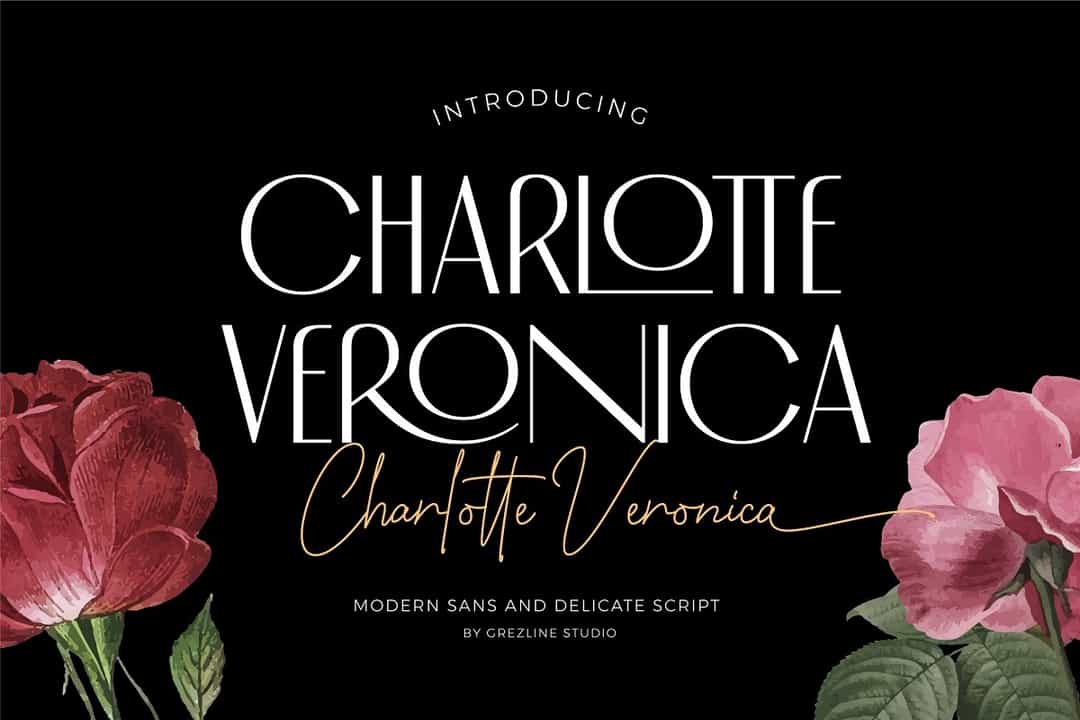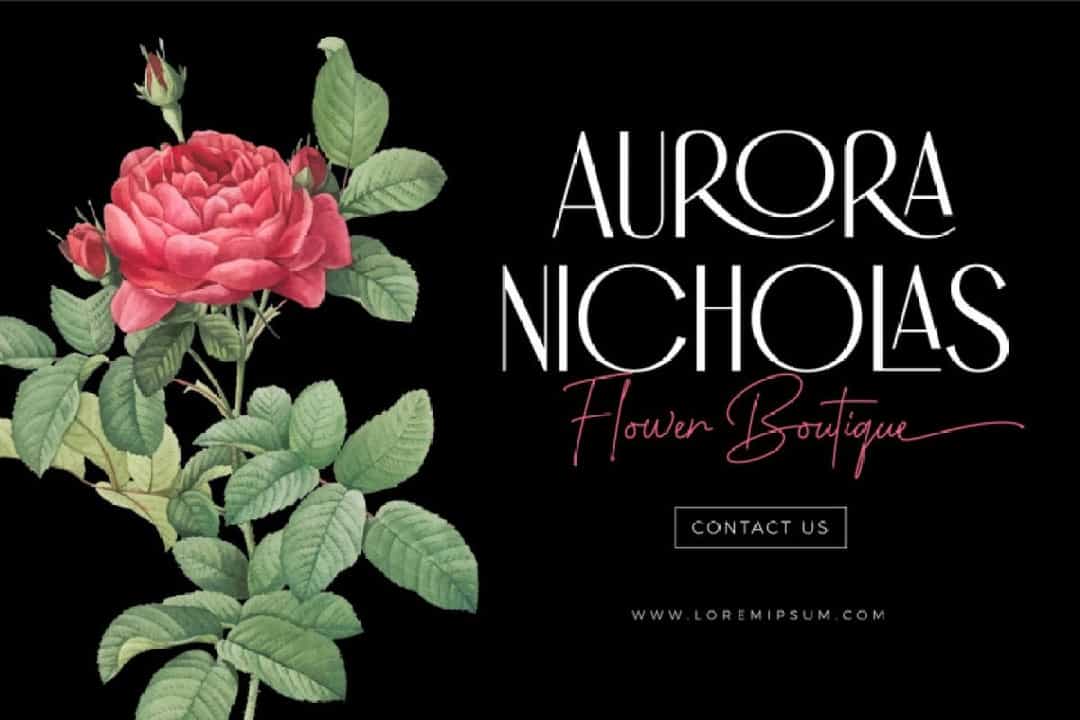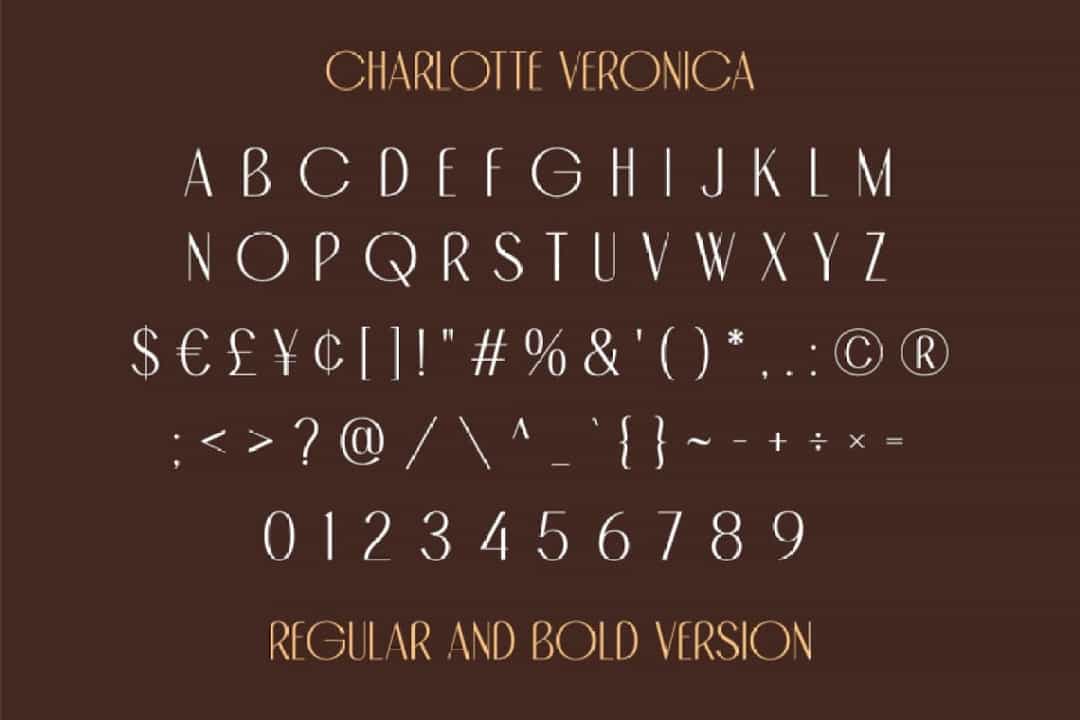
Charlotte Veronica is an eye-catching sans serif font designed specifically for fashion-related requirements. Its font family contains both modern sans serifs and delicate script, providing plenty of ways to experiment and mix them for unique designs!